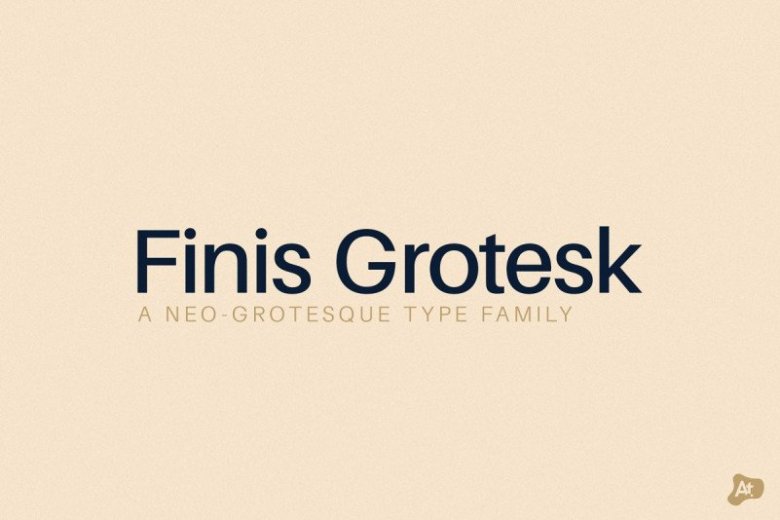
Finis Grotesk Font Family
Finis Grotesk Sans Family is a elegant sans font family by Alvo.type. This is a modern, geometric, a contemporary sans which focus on clarity and legibility. It has a little bit of personality. Inspired by the Bauhaus movement, It’s was designed for headlines or texts, displaying simple and effective glyph design. Its versatile design options is perfect for headlines, logos and branding, displays, invitations, posters, packaging, blog headers, recipe cards, postcards and so much more.